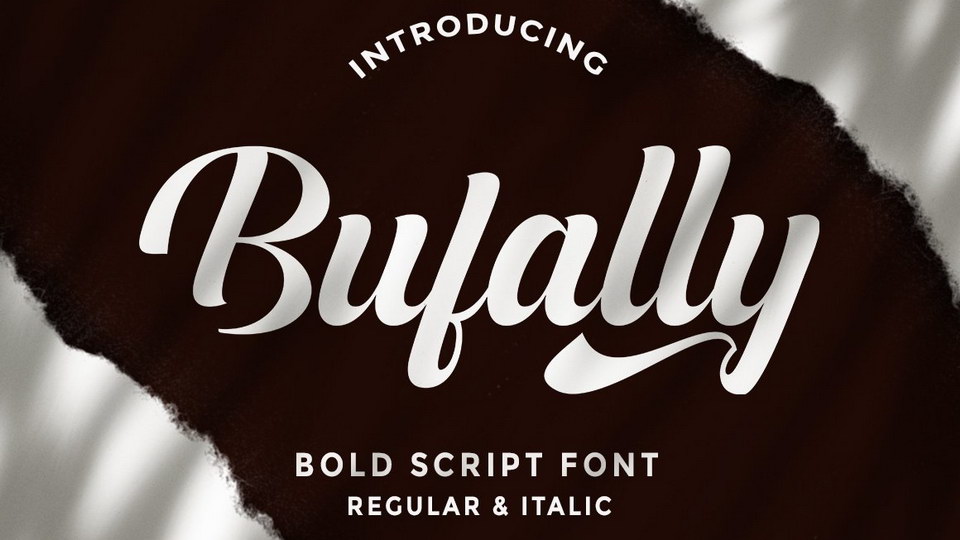
Download Bufally Script, a soft, bold, elegant and fun vintage font. Can be used for various purposes such as logos, wedding invitations, t-shirts, letterheads, signage, news, posters, badges, and more.
Designer: Letter Fresh Studio